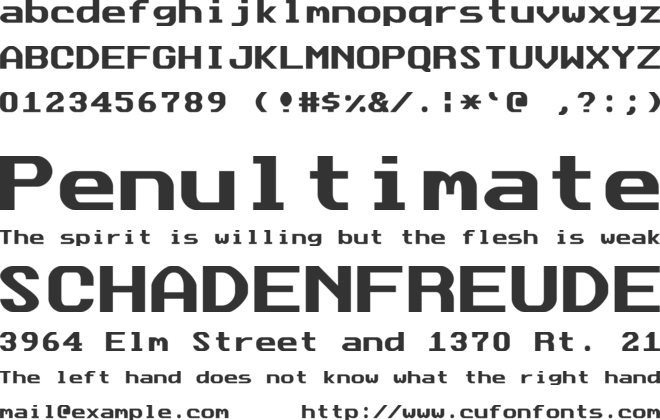
DataSunFixed Font Family
A remake of an old console style font seen in "graph" mode from Object Pascal related languages.
Comes in two versions(and files). Fixed width, and Justified width.
Extended character set may not be exactly perfect.